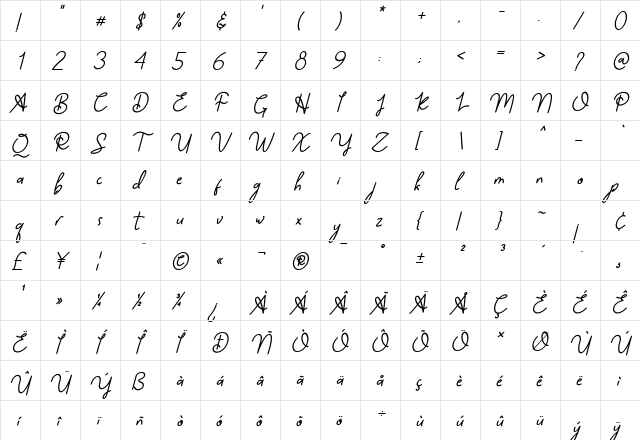
Sahur Bosku Comic Italic
| Style | Comic Italic |
| Foundry | CBRTEXT Studio |
| Designer | CBRTEXT Studio |
Design Context for Sahur Bosku Typeface
Sahur Bosku has an approachable, lighthearted character — its loose, expressive forms are well-suited to children's content, casual branding, and fun-first design. The dynamic lean of this cut emphasises speed and emphasis in any layout.
Great for children's books, toy packaging, family event branding, and casual consumer-facing design.
Font Pairing: Pairs well with a rounded or humanist sans for body copy, maintaining the friendly tone without relying on Sahur Bosku to carry extended reading.
Pro Tip: Avoid using Sahur Bosku for long passages of text — it works best for headlines, labels, and short calls to action.